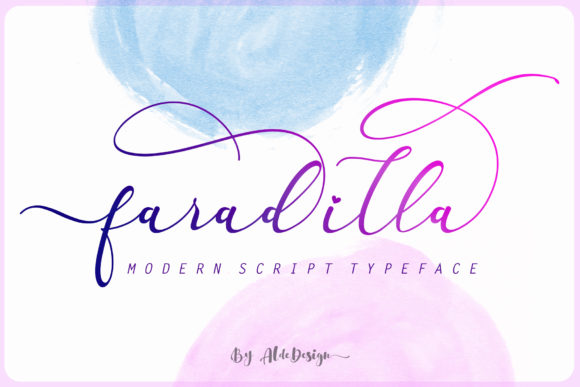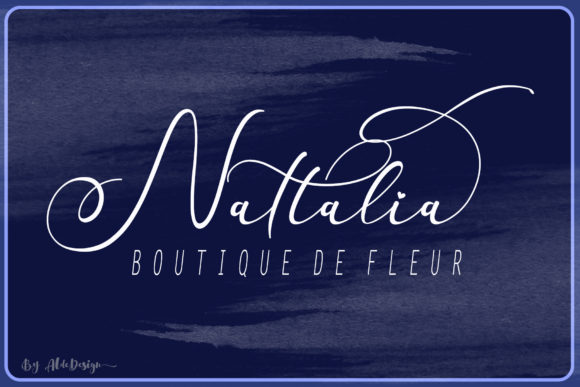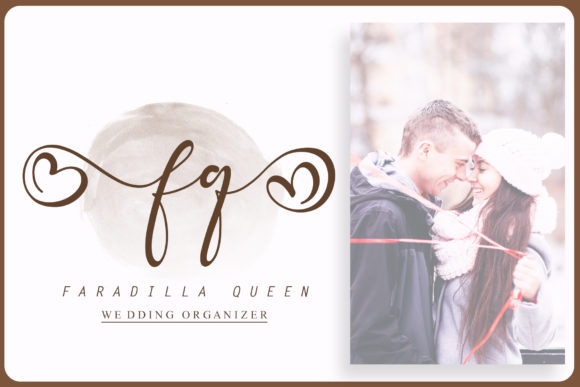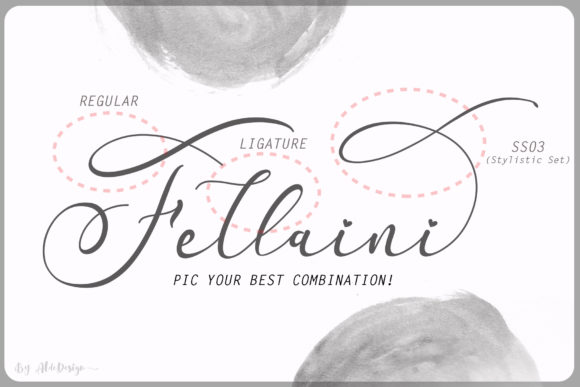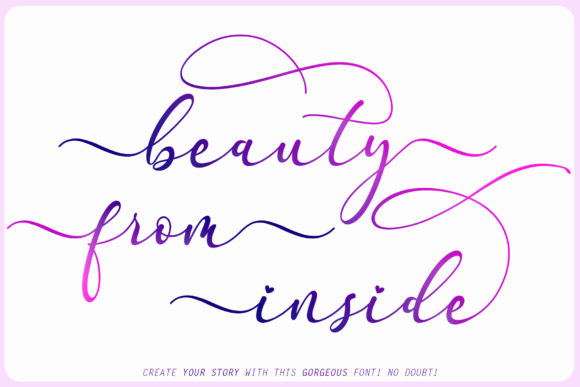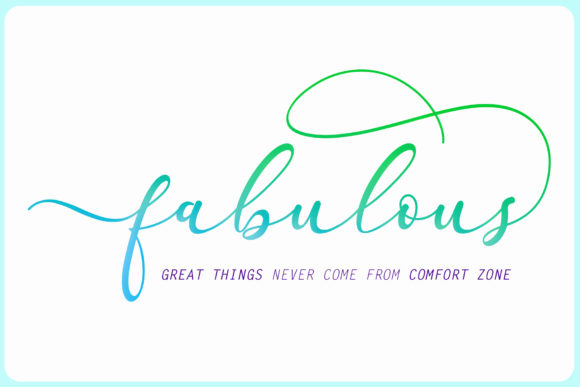
Introducing Faradilla Script Font: Elevate Your Designs with Elegance
In the world of typography, a beautiful script font can make all the difference in adding a touch of sophistication and luxury to your designs. Look no further than the Faradilla Script Font, a stunning typeface that exudes elegance and refinement. With its smooth lines and varying baseline, Faradilla is the perfect choice for designers and crafters looking to add a touch of love to their creations.
The Characteristics of Faradilla Script Font
So, what makes Faradilla Script Font so special? Here are just a few of its key characteristics:
- Smooth Lines: Faradilla features smooth, flowing lines that give it a sense of fluidity and movement.
- Varying Baseline: The font’s varying baseline adds a touch of whimsy and elegance, making it perfect for designs that require a bit of flair.
- Luxurious Feel: Faradilla’s unique combination of smooth lines and varying baseline gives it a luxurious feel that’s perfect for high-end designs.
Uses for Faradilla Script Font
Faradilla Script Font is incredibly versatile, making it suitable for a wide range of design applications. Here are just a few ideas to get you started:
- Headings: Use Faradilla as a heading font to add a touch of elegance to your designs.
- Weddings and Invitations: Faradilla is perfect for wedding invitations, save-the-dates, and other wedding-related designs.
- Signatures and Logos: Add a touch of sophistication to your signatures and logos with Faradilla.
- Branding: Use Faradilla as a brand font to give your business a luxurious and refined feel.
- T-Shirts and Apparel: Faradilla is a great choice for designing t-shirts, hoodies, and other apparel.
- Letterheads and Stationery: Add a touch of elegance to your letterheads, stationery, and other business documents.
- Signage and Labels: Use Faradilla for signage, labels, and other display materials.
- News and Posters: Faradilla is perfect for designing news headlines, posters, and other display materials.
- Badges and Awards: Add a touch of sophistication to your badges, awards, and other recognition materials.
Why Choose Faradilla Script Font?
With so many script fonts on the market, why choose Faradilla? Here are just a few reasons:
- Unique Style: Faradilla’s unique combination of smooth lines and varying baseline sets it apart from other script fonts.
- Elegant and Refined: Faradilla exudes elegance and refinement, making it perfect for high-end designs.
- Versatile: Faradilla can be used for a wide range of design applications, from headings and weddings to signatures and branding.
- Easy to Read: Despite its elegant style, Faradilla is easy to read, making it perfect for body text and other applications where legibility is important.
Tips for Using Faradilla Script Font
Here are a few tips for getting the most out of Faradilla Script Font:
- Use it sparingly: Faradilla is a bold font, so use it sparingly to add emphasis and elegance to your designs.
- Pair it with a sans-serif font: Pair Faradilla with a sans-serif font, such as Arial or Helvetica, to create a striking contrast.
- Experiment with colors: Faradilla looks great in a variety of colors, so don’t be afraid to experiment and find the perfect hue for your design.
In conclusion, Faradilla Script Font is a beautiful and elegant typeface that’s perfect for designers and crafters looking to add a touch of luxury to their creations. With its smooth lines, varying baseline, and luxurious feel, Faradilla is the perfect choice for a wide range of design applications. Whether you’re designing headings, weddings, signatures, or branding materials, Faradilla is sure to impress. So why wait? Download Faradilla Script Font today and start elevating your designs with elegance!